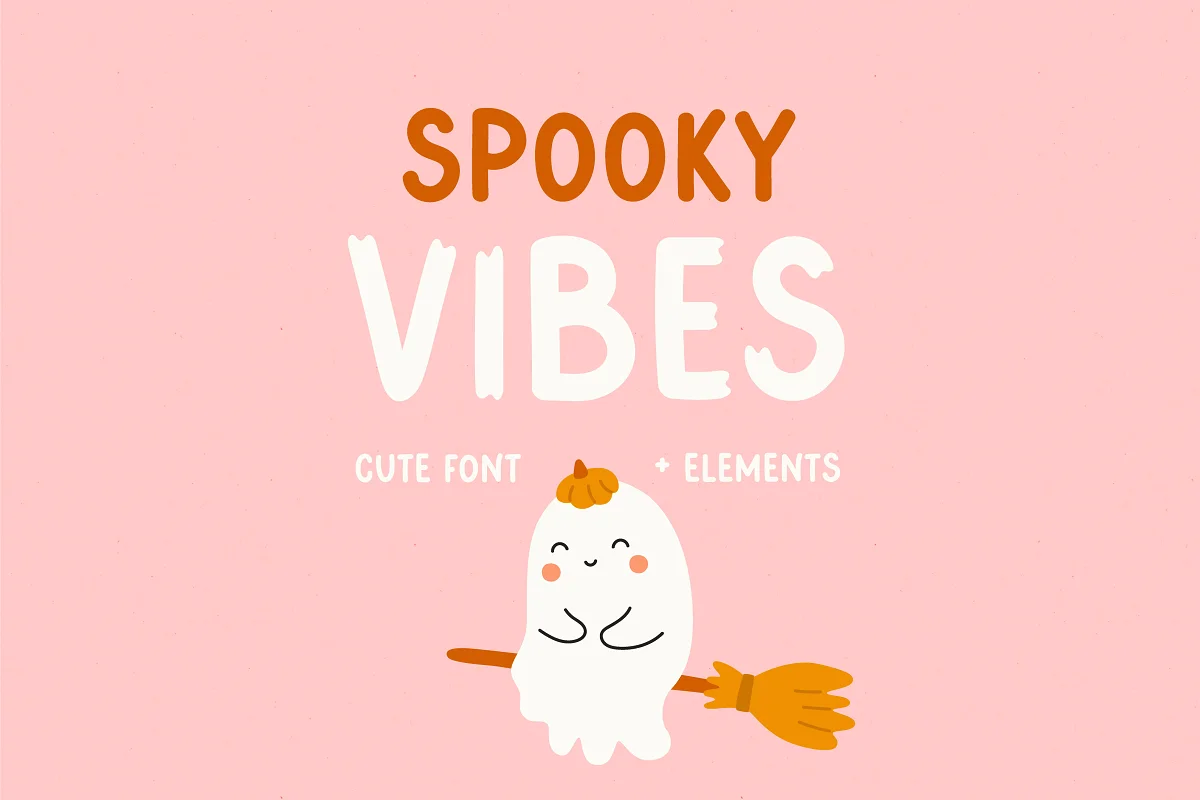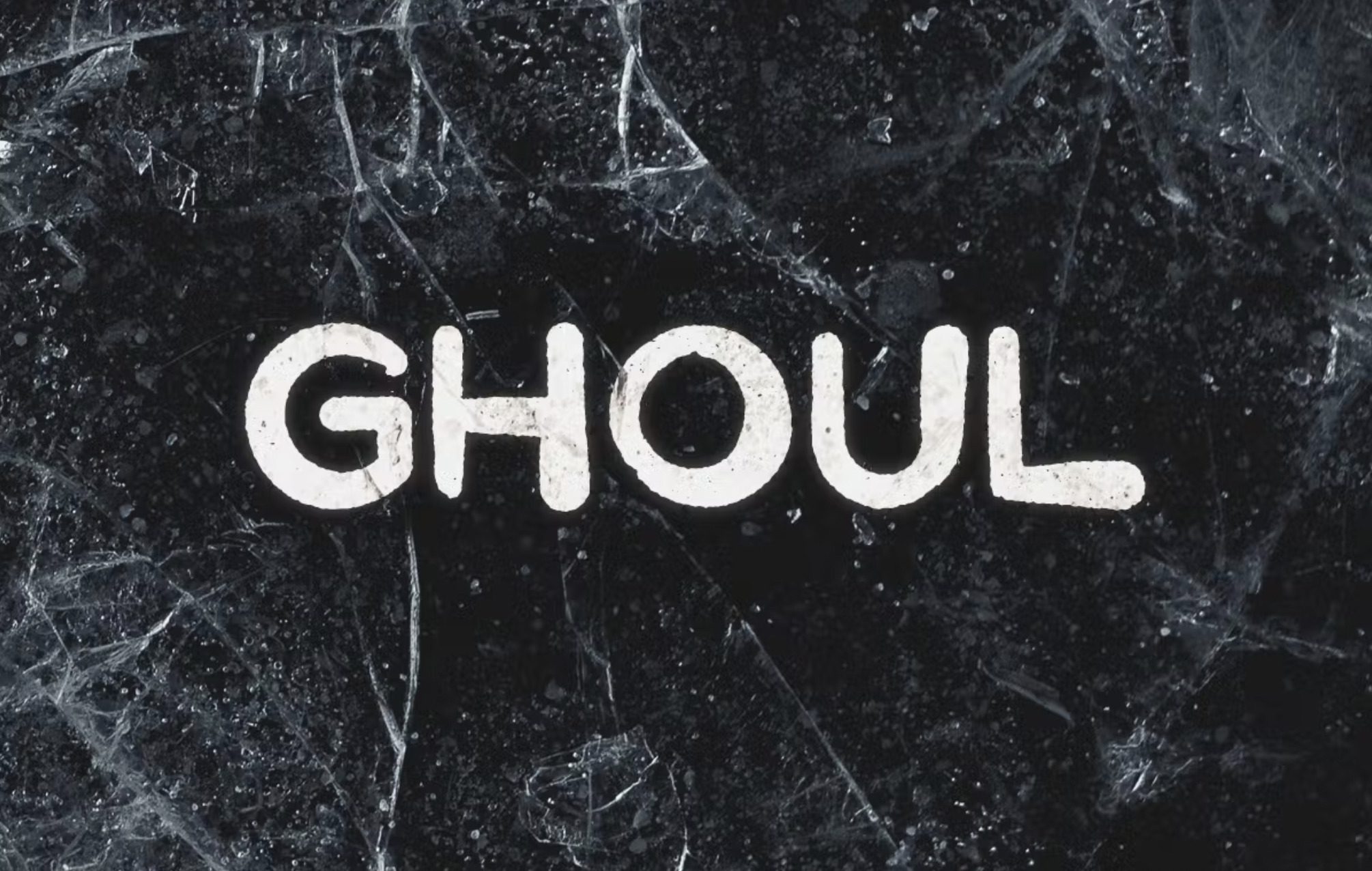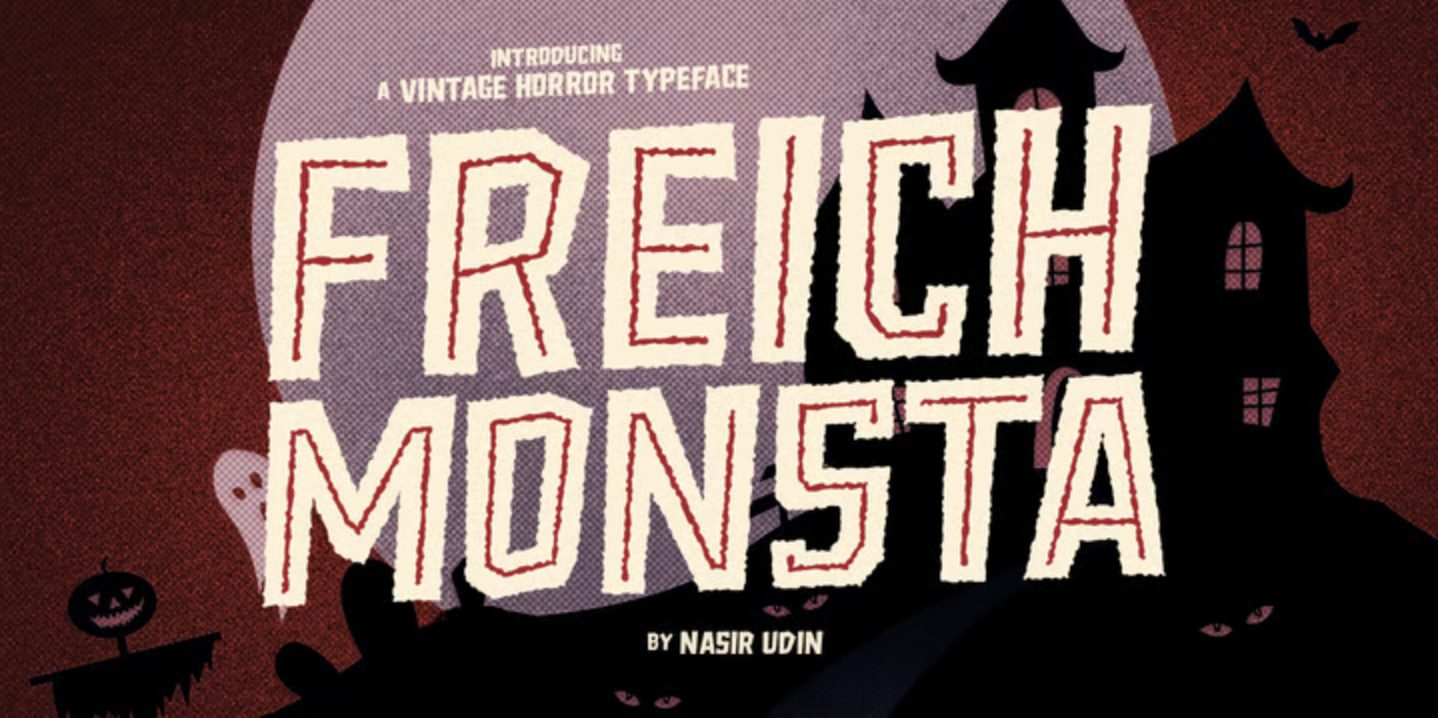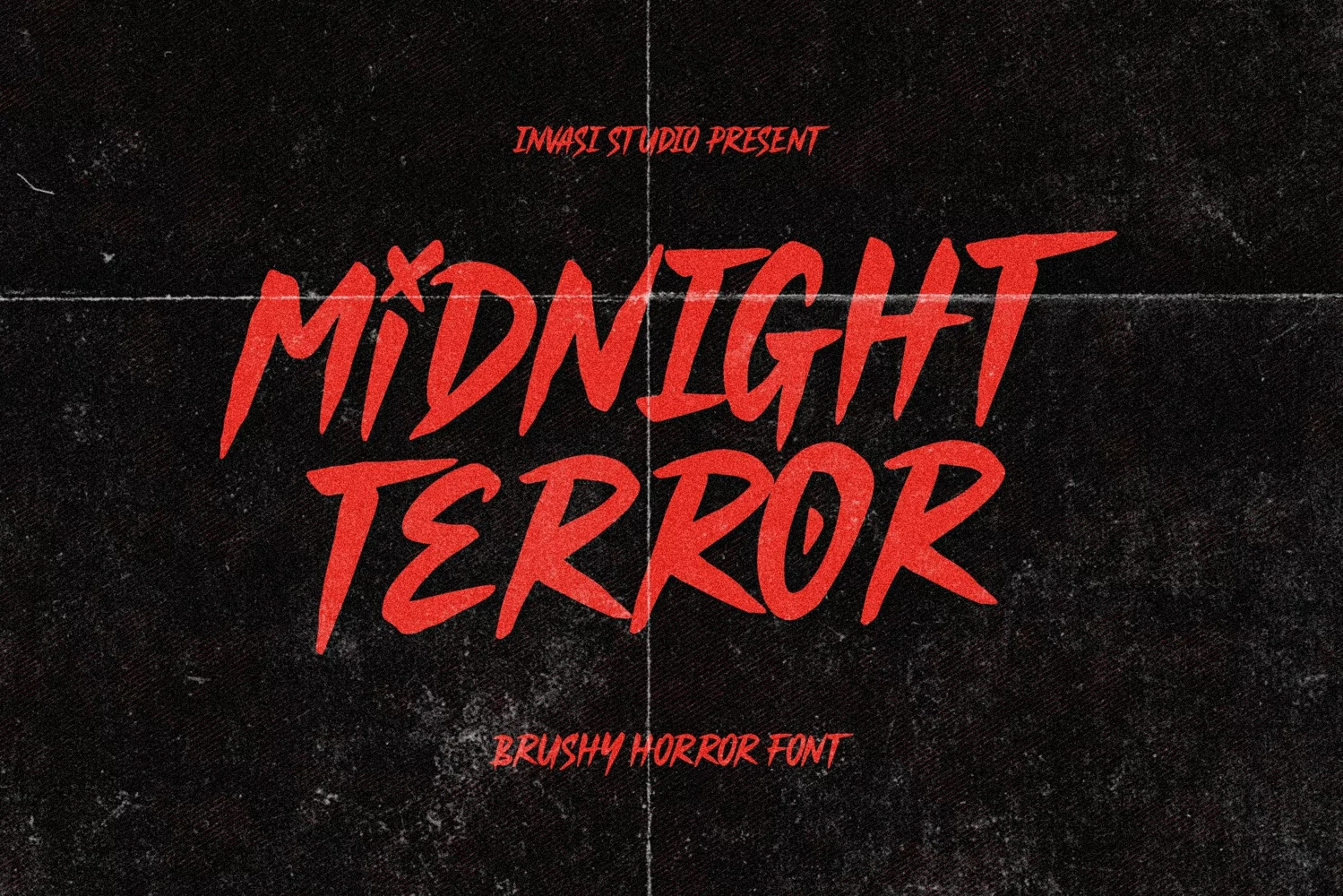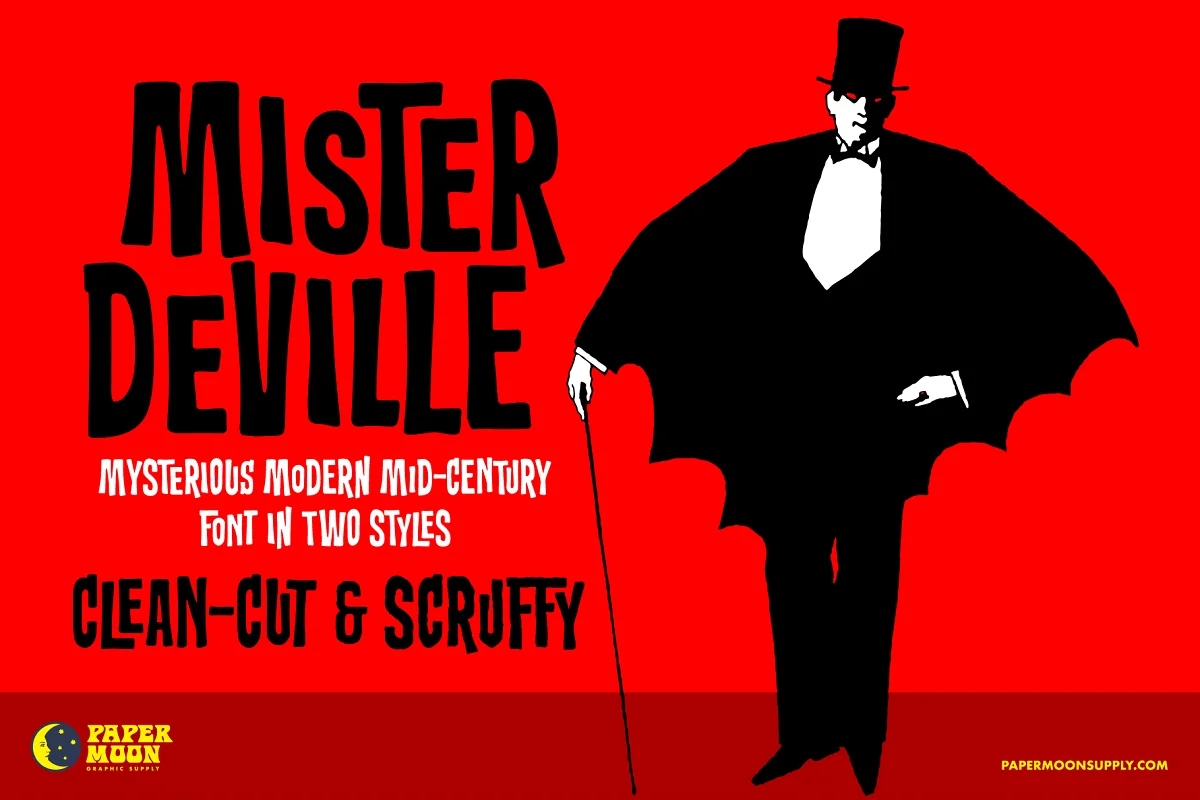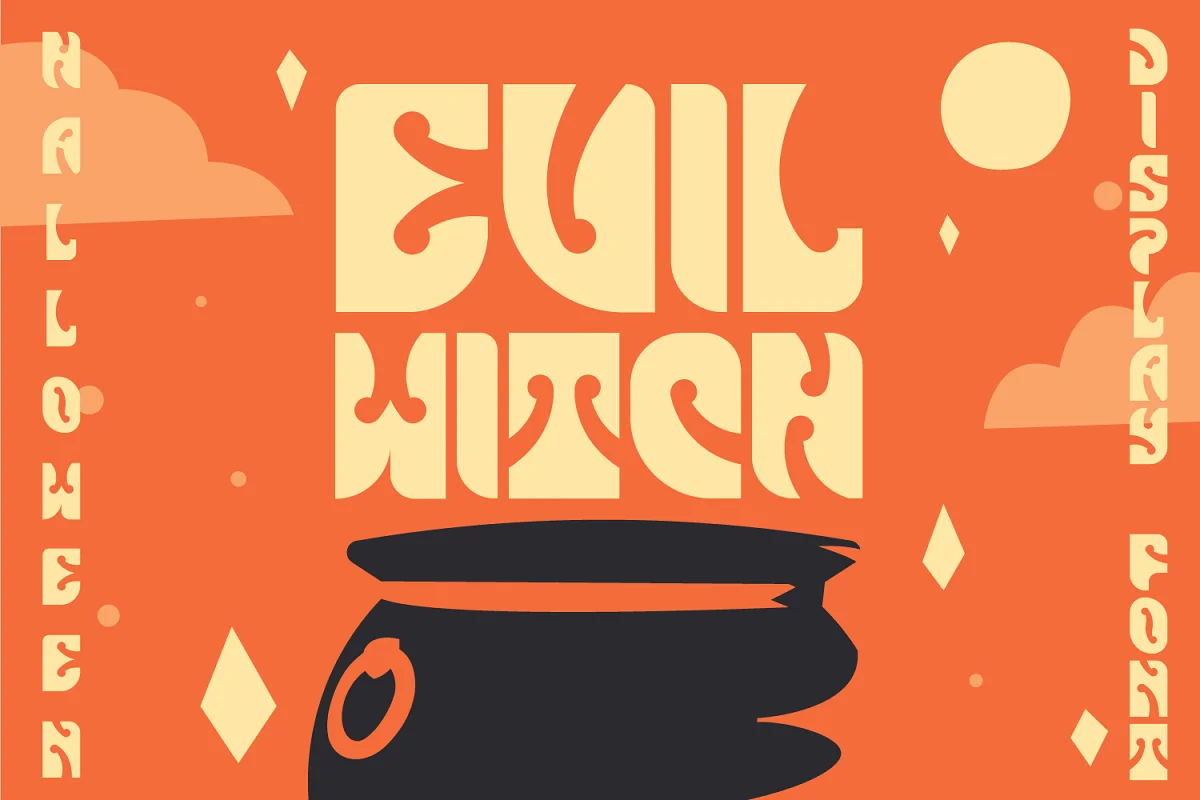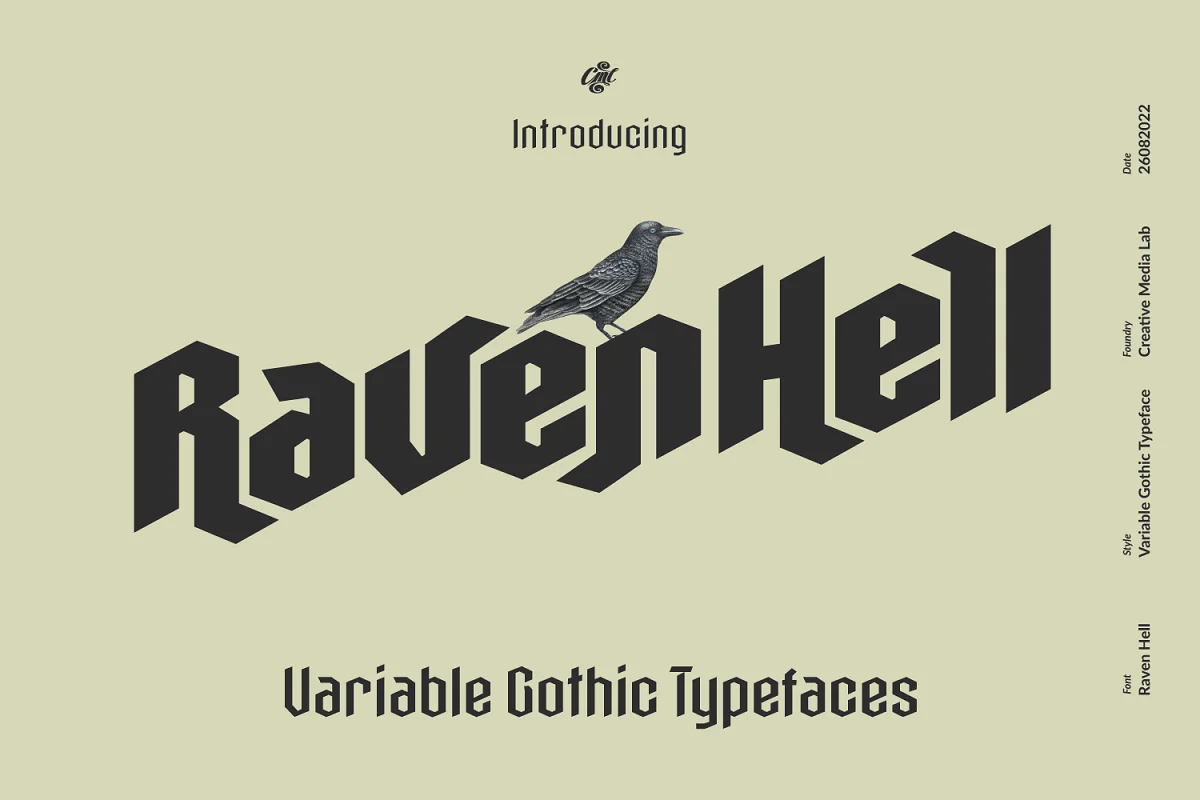
Halloween is upon us, and our designer, Tony, has compiled his annual list of his favorite top ten spooky fonts for the season. Whether you need something to   liven up  the invitations for your Halloween party,  or you need to make sure your social media campaign doesn’t fall flat, you can find the perfect spooky fonts right here. Get creative and enjoy!
#1: The Viperion
the viperion spooky fonts 2022
#2) Midnight Terror
midnight terror spooky fonts 2022
#3) Ghoul
ghoul 2022
#4)  Freich Monsta
freich monsta 2022
#5)  Raven Hell
raven hell 2022
#6)  Mister DeVille
mister deville 2022
#7)  GHOSTYPE
ghostype 2022
#8) Spooky Vibes
spooky vibes fonts 2022
#9)  Evil Witch
evil witch 2022
#10)  Death Party
death party 2022